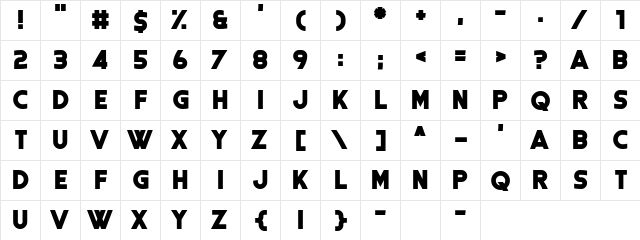
Coral Colour Regular
| Designer | Allison James |
Design Context for Coral Colour Typeface
Coral Colour offers clean, dependable letterforms without strong stylistic allegiance, making it a practical choice for designers who need flexibility.
Pro Tip: Use Coral Colour in both headline and body roles to test its range before committing to a single application.